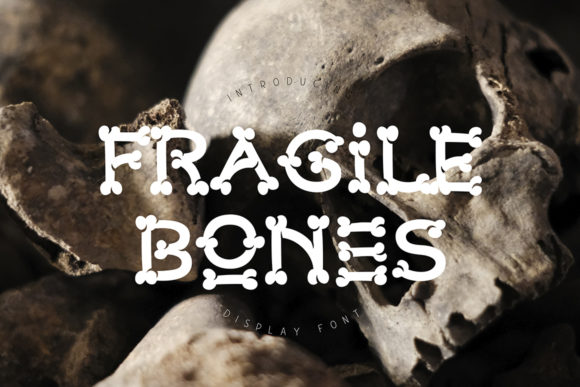
Unleash the dark enchantment of Fragile Bones, a display font that casts an eerie spell on your designs. Inspired by the haunting beauty of Halloween, this font will add an unforgettable touch of mystery to any project. Step into a realm of the unknown and let Fragile Bones transport you to a world of intrigue and enchantment.
Dare to explore the depths of your creativity and let Fragile Bones be your guiding light. From chilling posters that send shivers down spines to enchanting invitations that hint at hidden secrets, there's no limit to the captivating designs you can create. Let Fragile Bones take you on a thrilling adventure as you craft visuals that are both spellbinding and unforgettable.
Feel the spine-tingling sensation as Fragile Bones dances across your screen, its delicate curves and sharp edges creating a visual spectacle. Each character is a work of art, infused with a touch of the macabre that will leave your audience captivated. Unleash the power of Fragile Bones and watch as your designs transform into mesmerizing masterpieces that linger in the memory long after they're seen.
With Fragile Bones at your fingertips, you possess the key to unlocking a world of dark beauty. Dive into the realm of the unknown and let your creativity soar. Make a statement that will echo through time, leaving your audience in awe of your artistic prowess. Embrace the enchanting allure of Fragile Bones and let your imagination run wild.